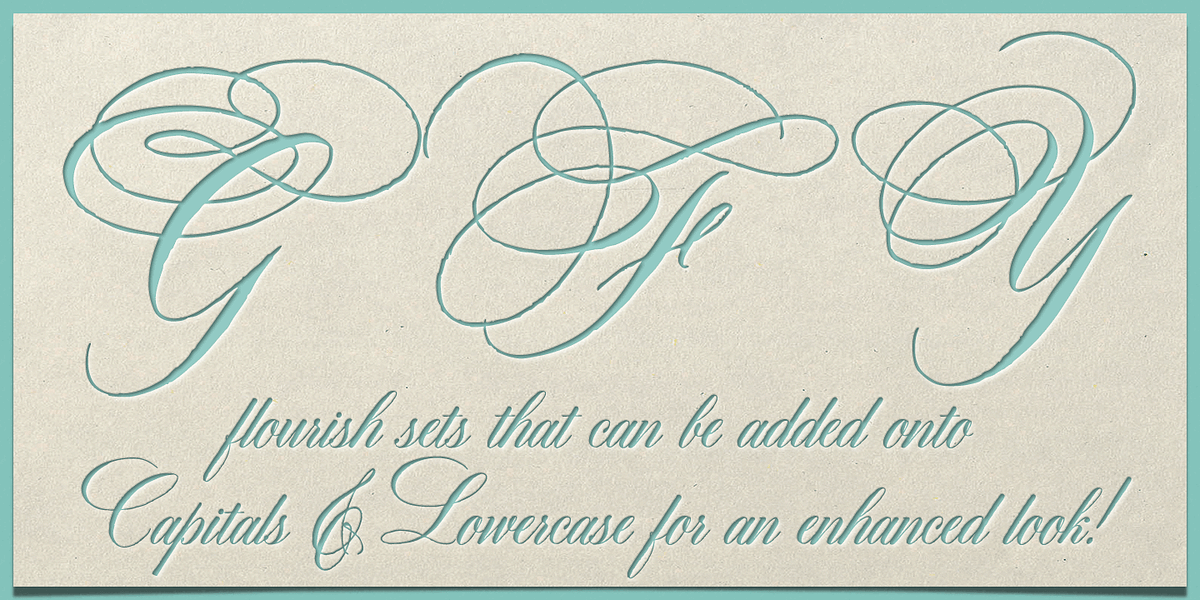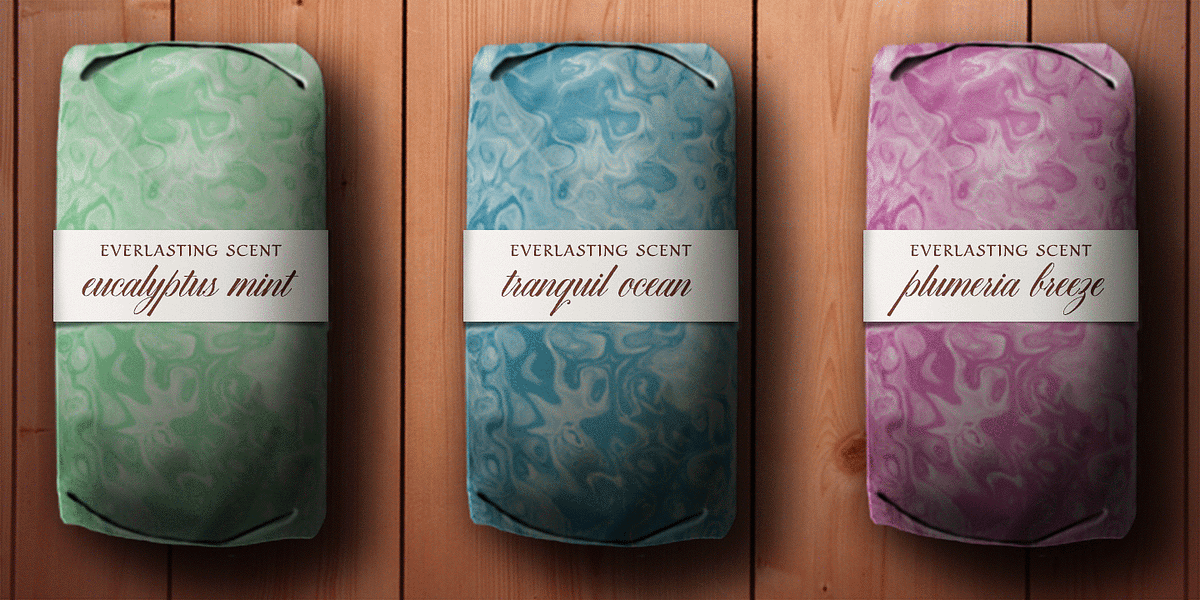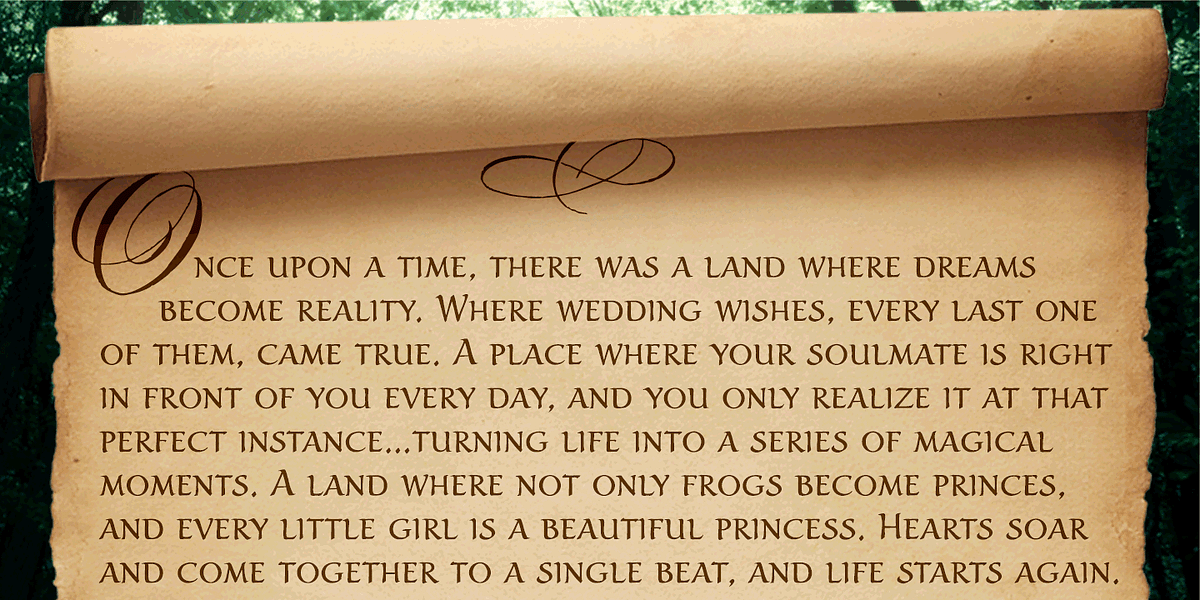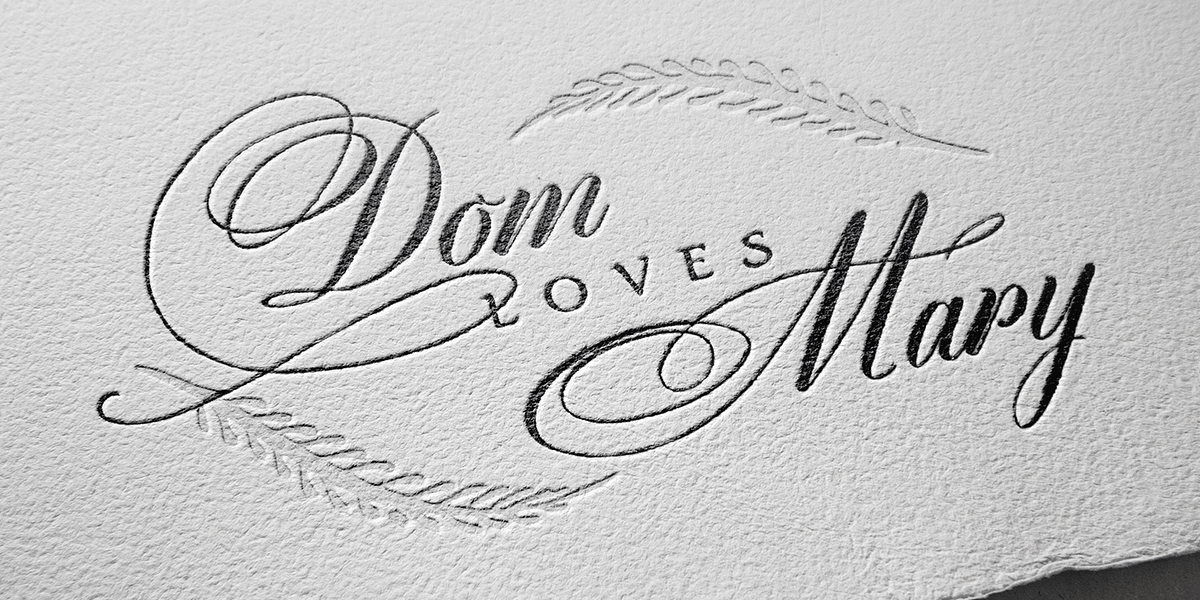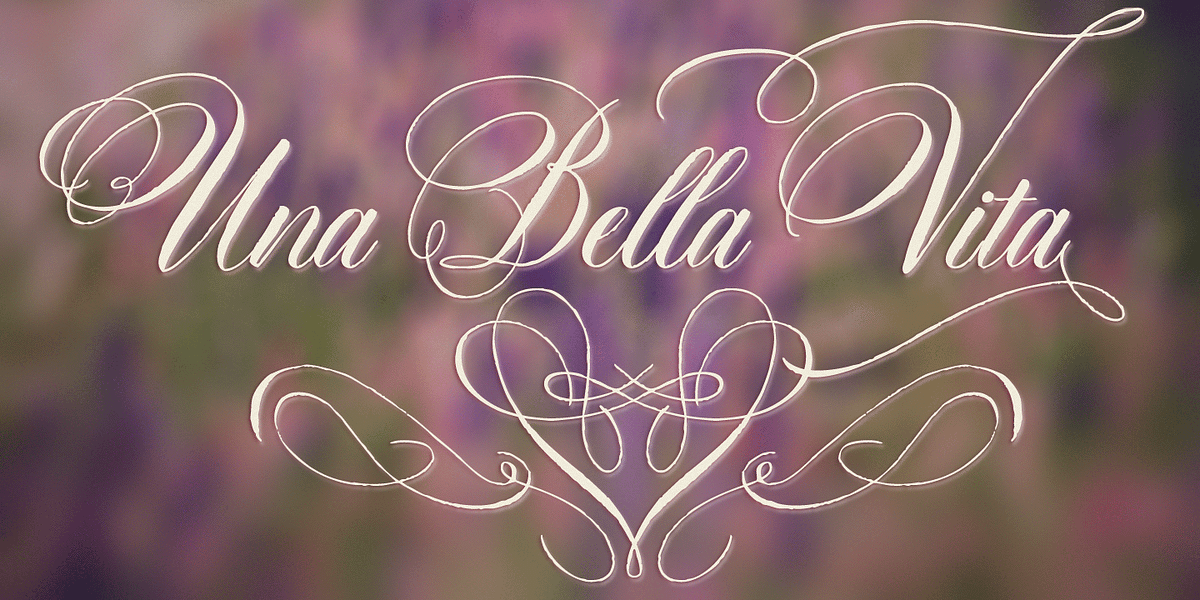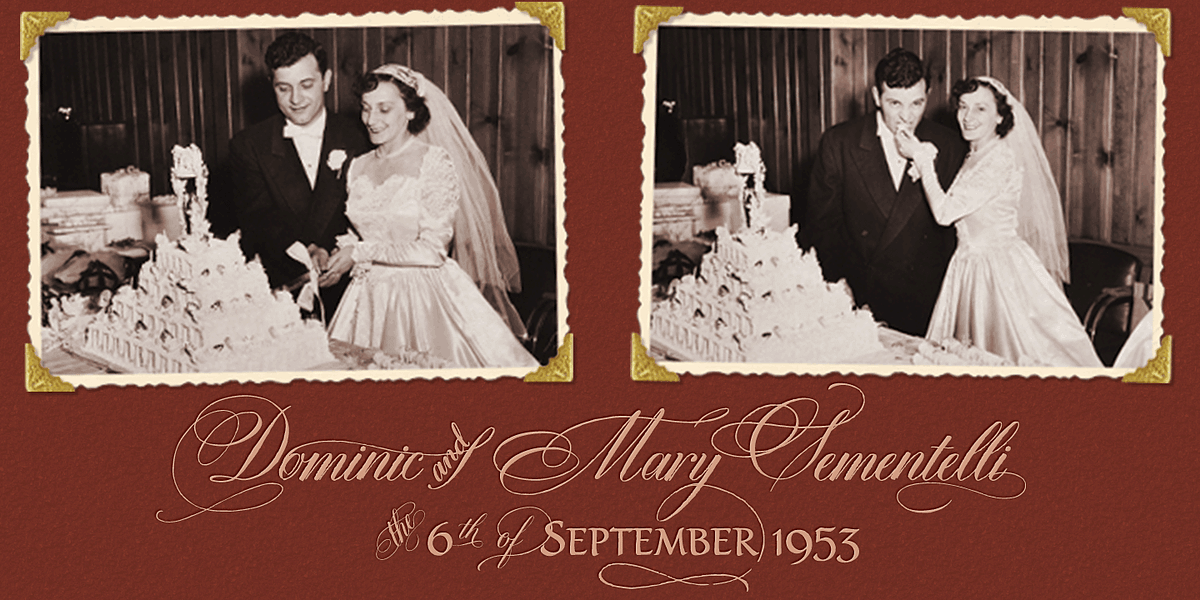
Dom Loves Mary
The DomLovesMary font family has all you need to create unique, custom stationery products.
THE INSPIRATION BEHIND THE DOMLOVESMARY FONT FAMILY:
DomLovesMary is named in memory of Dominic and Mary Sementelli, Debi’s in-laws. Dom and Mary were opposites who were truly “made for each other”. A snazzy dresser, Mary was feisty, loved to dance, sing, and be the life of the party. Dom was cool, calm and collected and was happy to shine the spotlight on the love of his life. They balanced each other out in a really great way.
Going through some of her in-laws old photos, Debi found their wedding album. She was struck by the beautiful look on their faces as they got ready to start their life together. She saw the excitement, joy and anticipation of them envisioning “Una Bella Vita!” (A beautiful life!)
She decided to create a hand-lettered font with them in mind represented by two totally different lettering styles that were, like Dom and Mary, “made for each other”. It’s her way of honoring them and sharing their beautiful life with all of the couples just starting theirs together.
They truly had “Una Bella Vita” and we hope you do too.
WHAT'S UNIQUE ABOUT THE DOMLOVESMARY FONT FAMILY:
The SCRIPT & TEXT FONTS are lettering styles that were made to compliment each other. With a vintage, classic feel, they will add elegance to your design, while the TEXT serves to offer support with easy to read simplicity.
In addition to the standard character set, each of the uniquely styled script fonts includes a collection of flourished ornaments. Use them to create corners, headers or other embellishments to complete the look.
And if you really want to fancy things up, we offer two sets of 72 additional flourishes that were specifically made to add to upper and lower case letters for easy customization. Dress them up with one, two or more. It’s like choosing simple pearls or piling on the glitz! Or combine several to create unique flourished ornaments of your own.
To add even more panache, we're pleased to present our ready made set of most frequently used ADD-ON WORDS. Created with the wedding client in mind, this set of 66 includes envelope friendly titles: Mr and Mrs, Mr, Mrs, Miss, Ms, Doctor, the Doctors, as well as words to fill out your invitation suite: RSVP, Respond, Save the Date, Accommodations, Directions and more! Easily create Bride and Groom signs or Thank You cards or tags with the click of a key. Or use angled words like “and, at, to, on, for, from and of” to add a special touch to your large groups of copy.